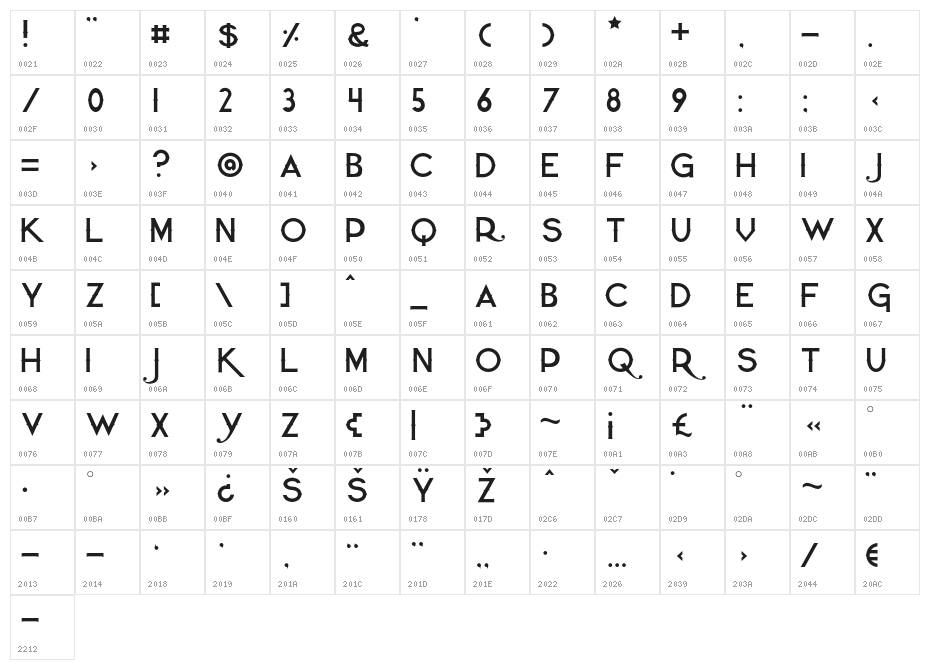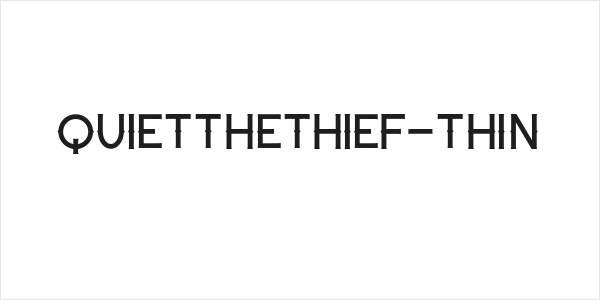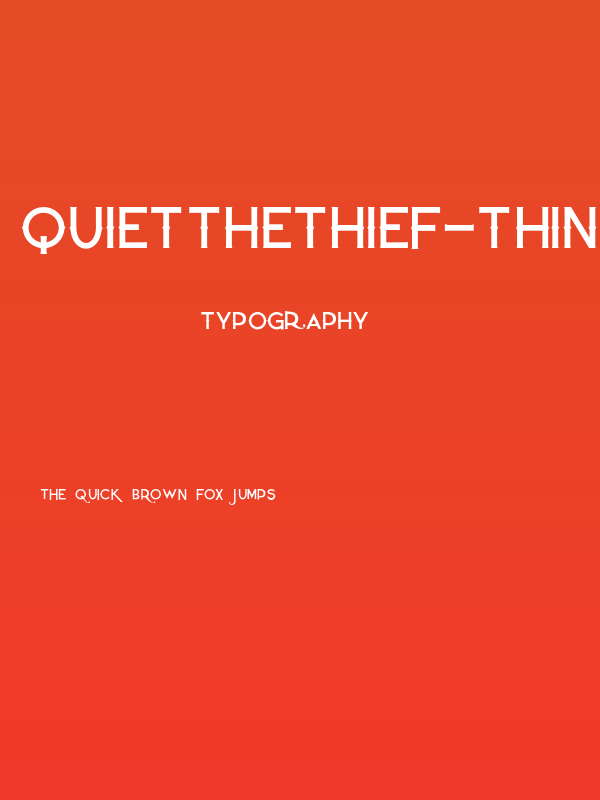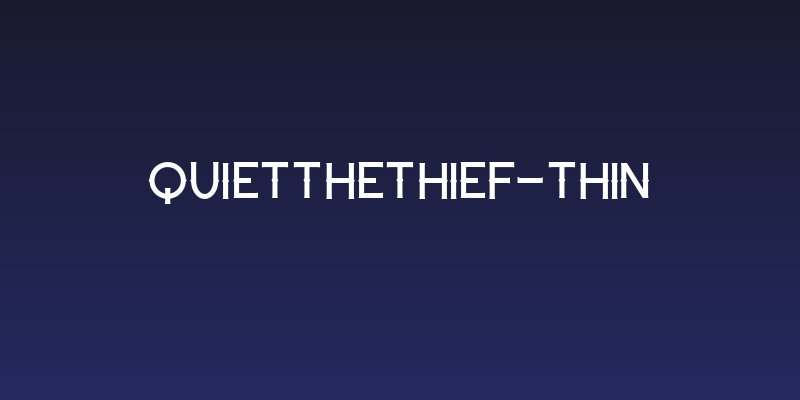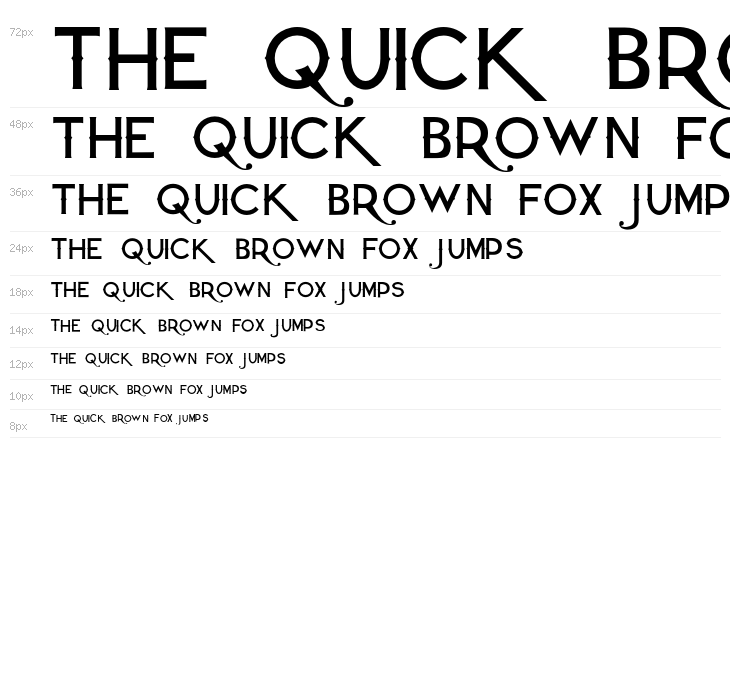
QuiettheThief-Thin Font
QuiettheThief-Thin Description
This font features a unique blend of geometric and decorative elements, creating a striking visual appeal. The uppercase letters are bold and angular, with distinct cutouts and curves that add a modern flair. The lowercase letters maintain a consistent style, with clean lines and subtle embellishments. The numerals are bold and easily legible, making them suitable for a variety of applications. Special characters are designed with the same attention to detail, ensuring a cohesive look across all text elements. This font's distinctive style makes it ideal for creative projects that require a touch of elegance and modernity.
| Proposed Projects | Ideal for branding, posters, and editorial design where a modern and artistic touch is desired. |